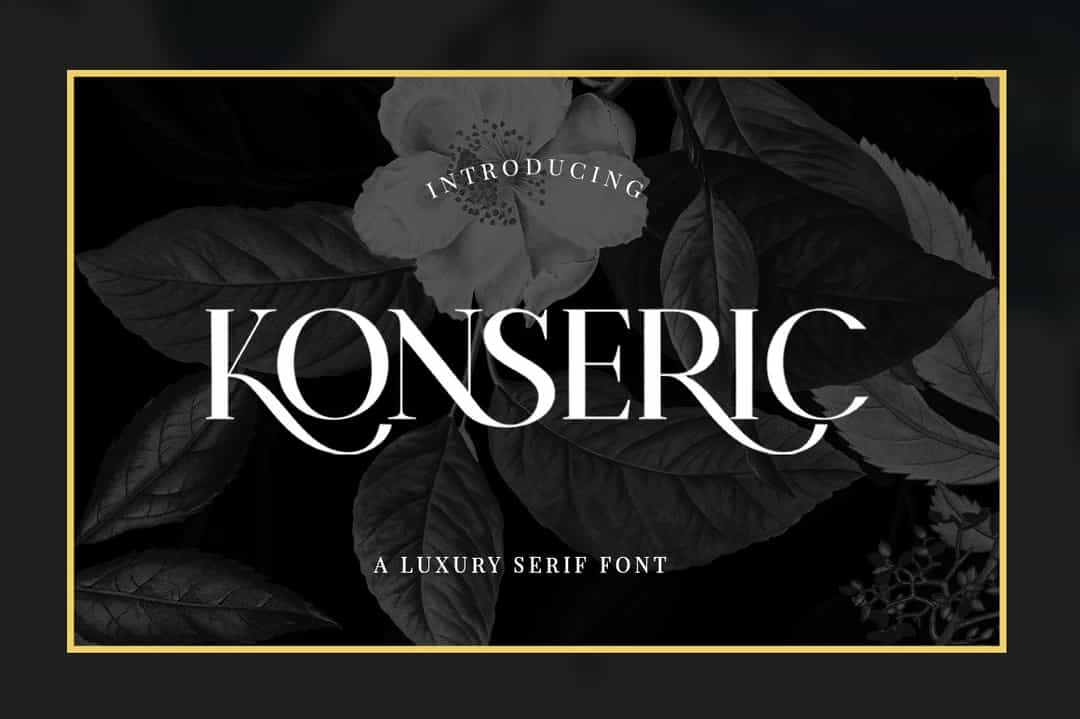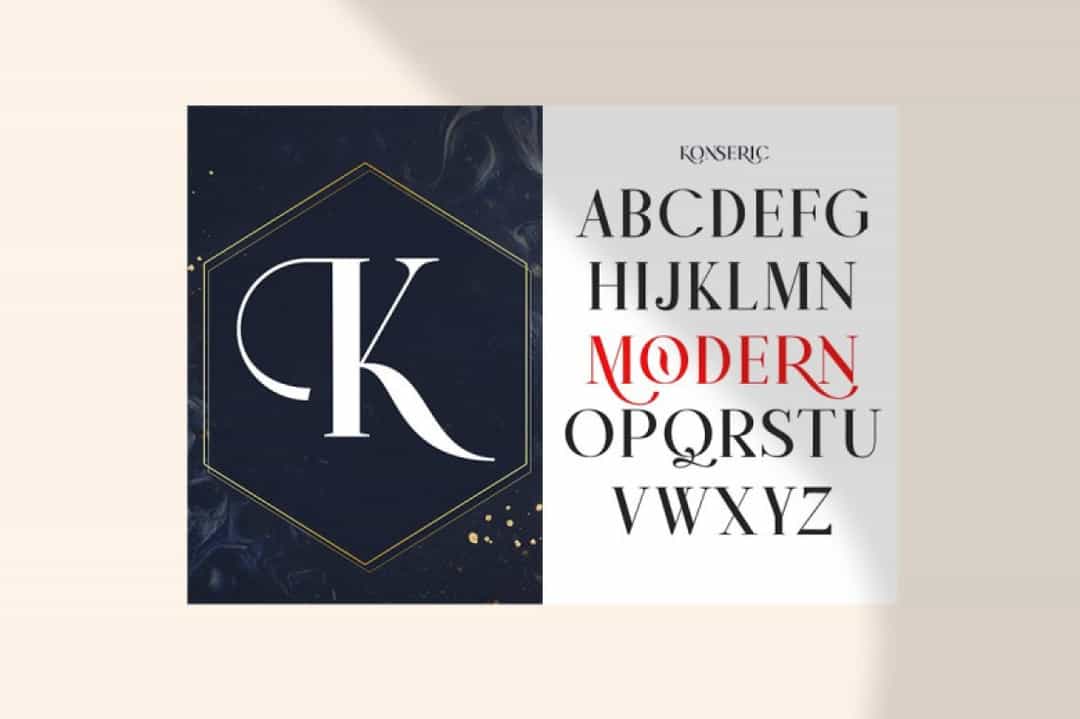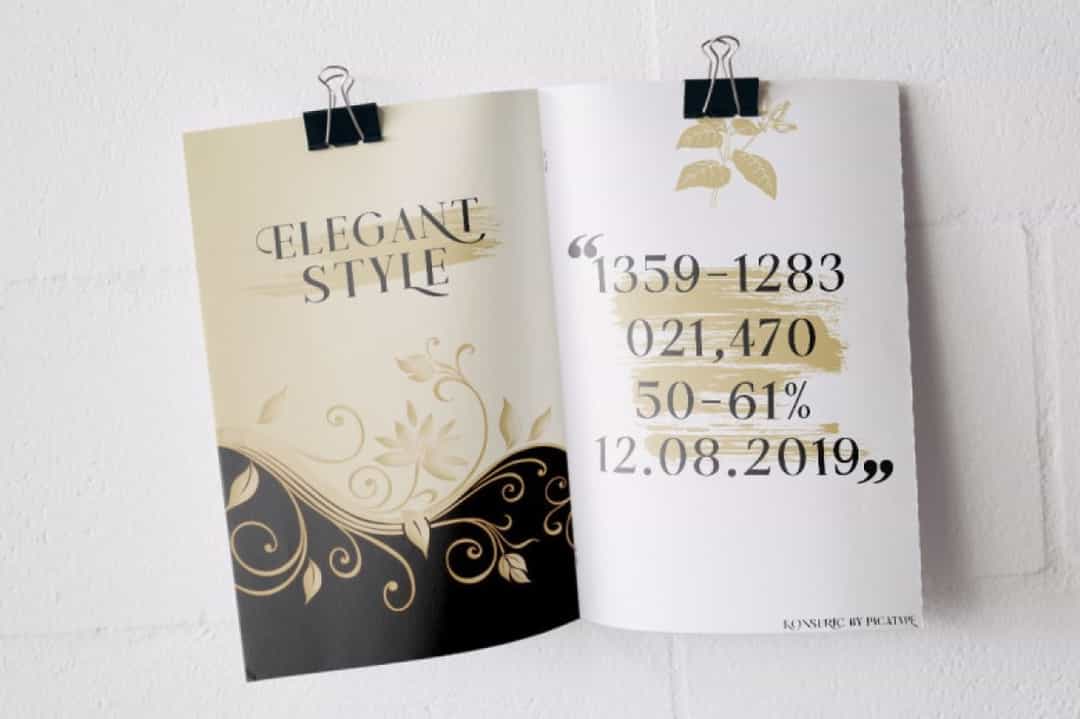
Konseric is a brand new font. A stunning serif typeface with timeless appeal, Konseric boasts distinctive curves and cut-ins that elevate its popularity among well-known fonts available today. Boasting unique uppercase characters, alternate designs, stunning ties and support for multiple languages; Konseric represents vintage in an modern, minimalist setting.